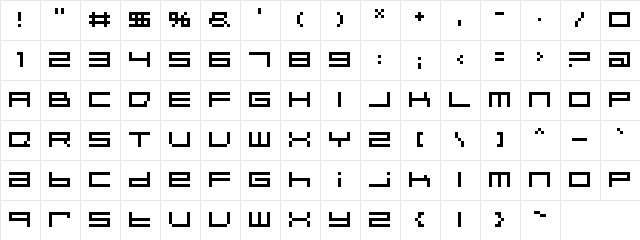
Indieutka Pixel8 Regular
| Designer | Psi Hoe Pate |
Design Context for Indieutka Pixel8 Typeface
Indieutka Pixel8 is rooted in pixel-grid construction, making it a natural fit for game UI, retro computing aesthetics, and digital nostalgia projects.
A natural choice for retro game titles, chiptune music branding, 8-bit UI, and digital nostalgia projects.
Pro Tip: Pair Indieutka Pixel8 with flat colour palettes and simple geometric UI elements to reinforce its digital aesthetic.